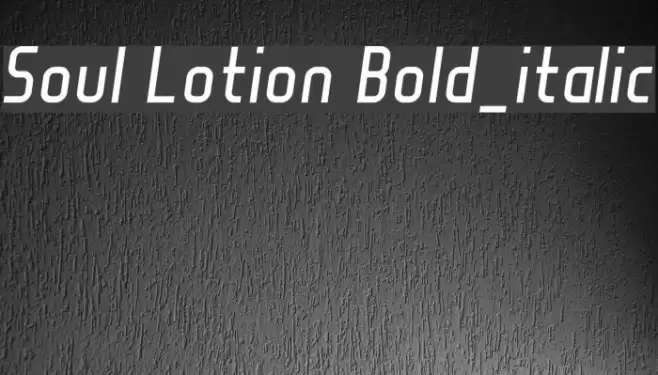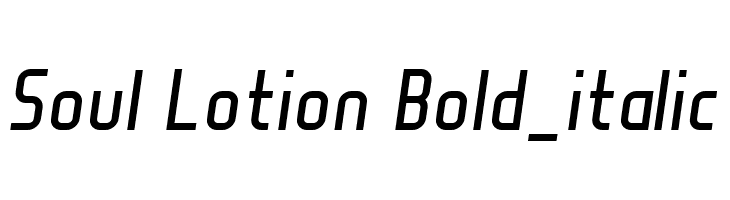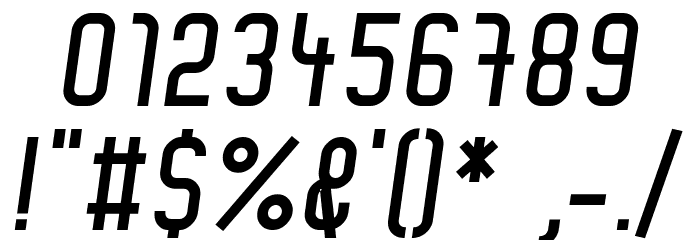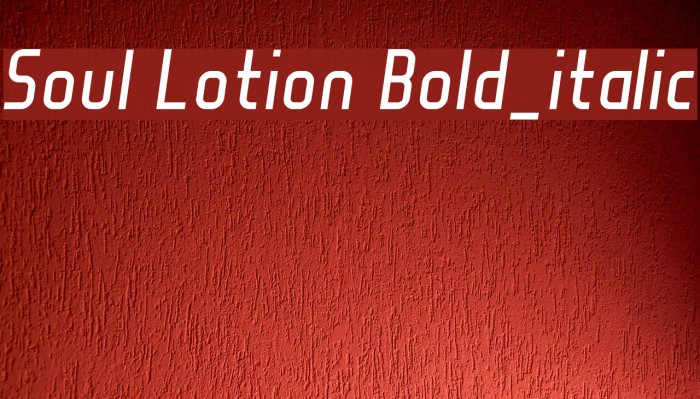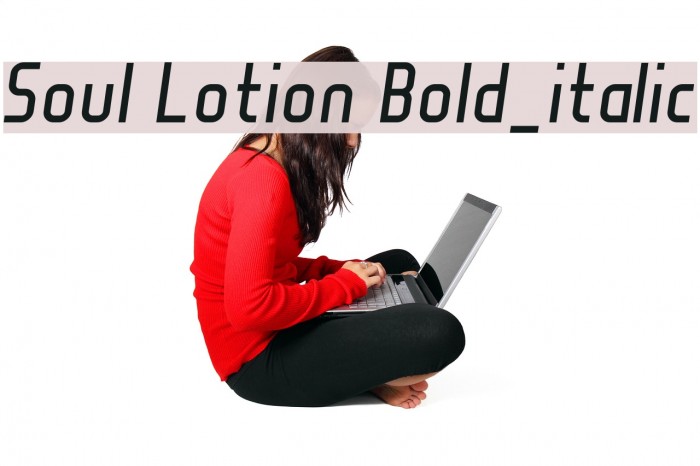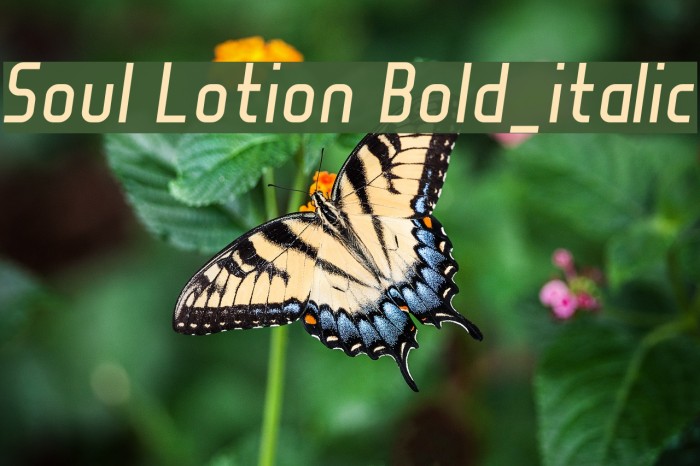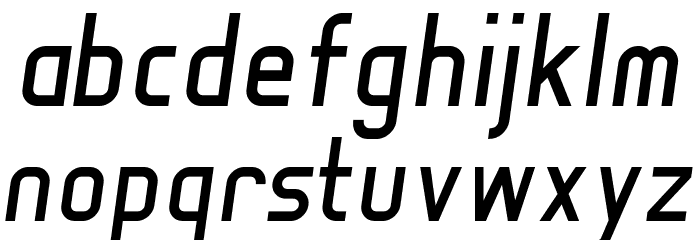
Soul Lotion Bold_italic Font
Soul Lotion Bold_italic Description
This font exhibits a modern, sleek design with a bold and italicized style. The characters are slightly condensed, giving it a compact appearance while maintaining readability. The strokes are consistent in weight, offering a medium contrast that enhances its contemporary look. The slanted orientation of the letters adds a dynamic feel, making it suitable for projects that require a touch of elegance and modernity. The numerals and special characters are designed to match the overall aesthetic, ensuring uniformity across different types of content.
A modern, bold, italic font with a sleek and slightly condensed design from Uncategorized fonts.
- Proposed Projects: Ideal for branding, advertising, and editorial design where a modern and dynamic appearance is desired.
- Use Case: Headlines, Logos, Branding